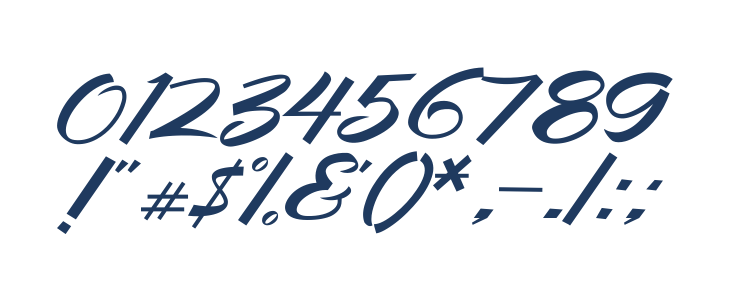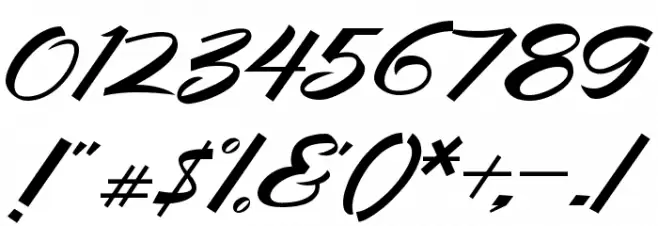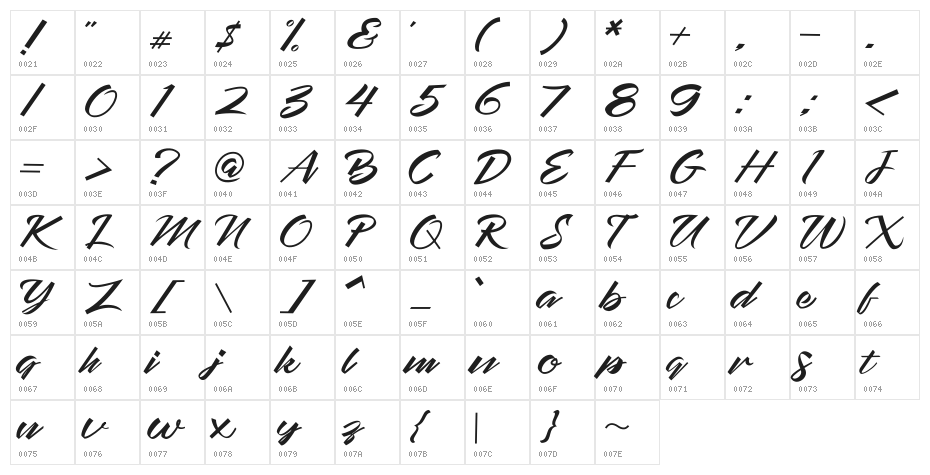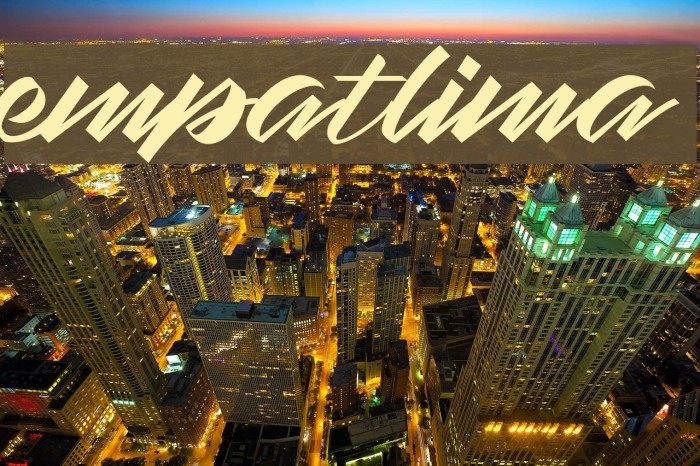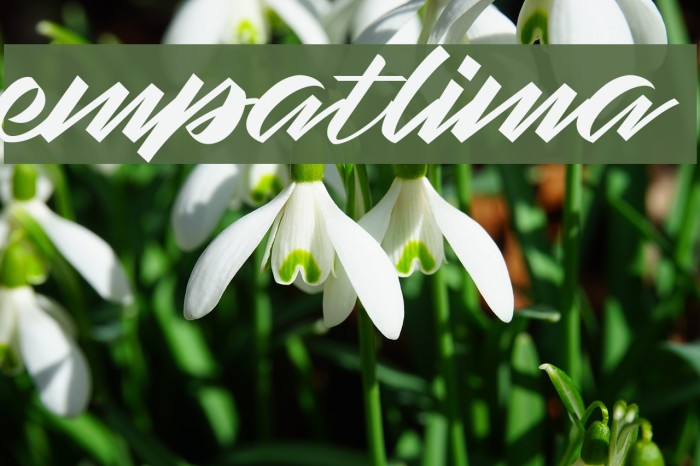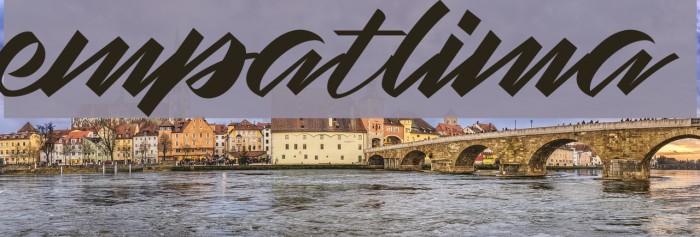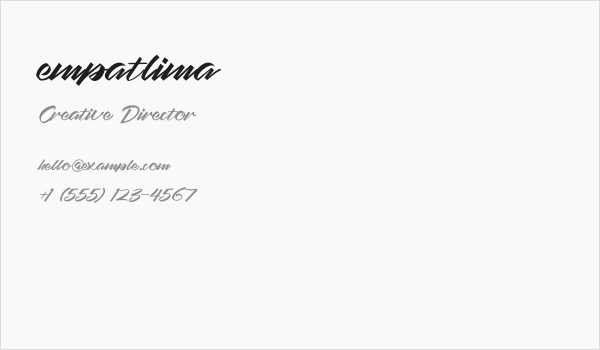
empatlima Font
empatlima Description
This font features a dynamic and flowing script style that exudes elegance and sophistication. The letters are interconnected with smooth, sweeping curves, giving it a handwritten appearance. The uppercase characters are bold and slightly slanted, while the lowercase letters maintain a consistent flow with a more pronounced slant. The numerals are distinctive, with a unique flair that complements the overall style. Special characters are designed to match the fluidity of the letters, ensuring a cohesive look. This font is perfect for projects that require a touch of elegance and personality.